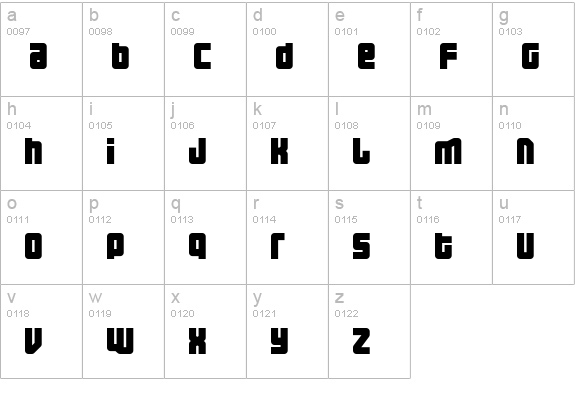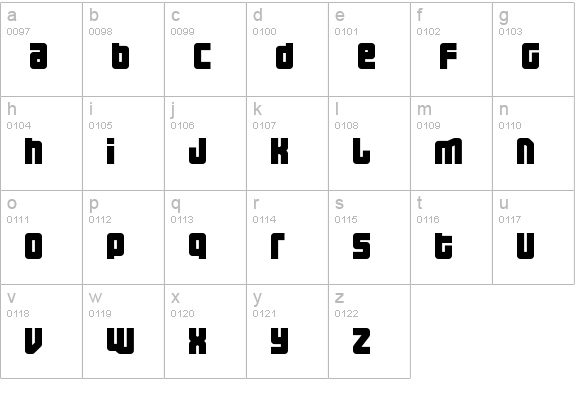
Introducing Three the Hard way Font - a bold and dynamic typeface that radiates strength and determination. This font is perfect for those who want to make a statement and stand out from the crowd. Three the Hard way Font features sharp edges and clean lines, giving it a modern and edgy feel. Its unique design captures the essence of power and resilience, making it an ideal choice for various creative projects. From logos to posters, this font will leave a lasting impression on your audience. One of the best things about Three the Hard way Font is that it is freely available to download at FontsMarket.com. Yes, you read that right - you can get this incredible font for free! FontsMarket.com offers a vast collection of high-quality fonts, and Three the Hard way Font is no exception. Whether you're a graphic designer looking to add a touch of boldness to your designs, or a content creator wanting to make your words leap off the page, Three the Hard way Font is the perfect choice. Its versatility and striking appearance will effortlessly enhance any project. So why wait? Head over to FontsMarket.com now and download Three the Hard way Font for free. Unleash your creativity and make a powerful statement with this exceptional font.